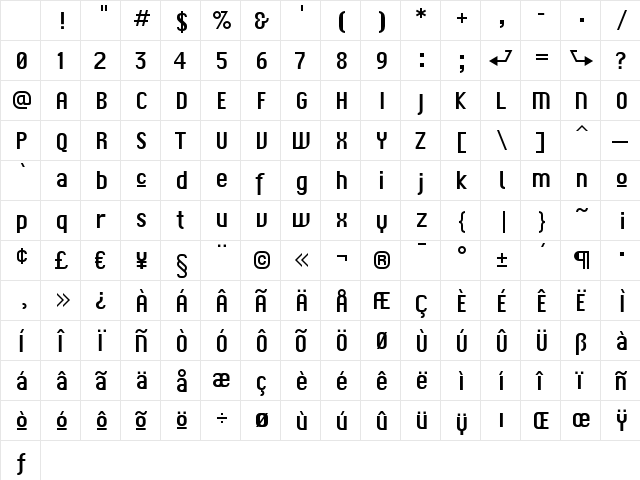
F2F Czykago LT Std is a composed and adaptable typeface that performs quietly and consistently across a wide range of design contexts. Its slender proportions lend an understated elegance to any composition.